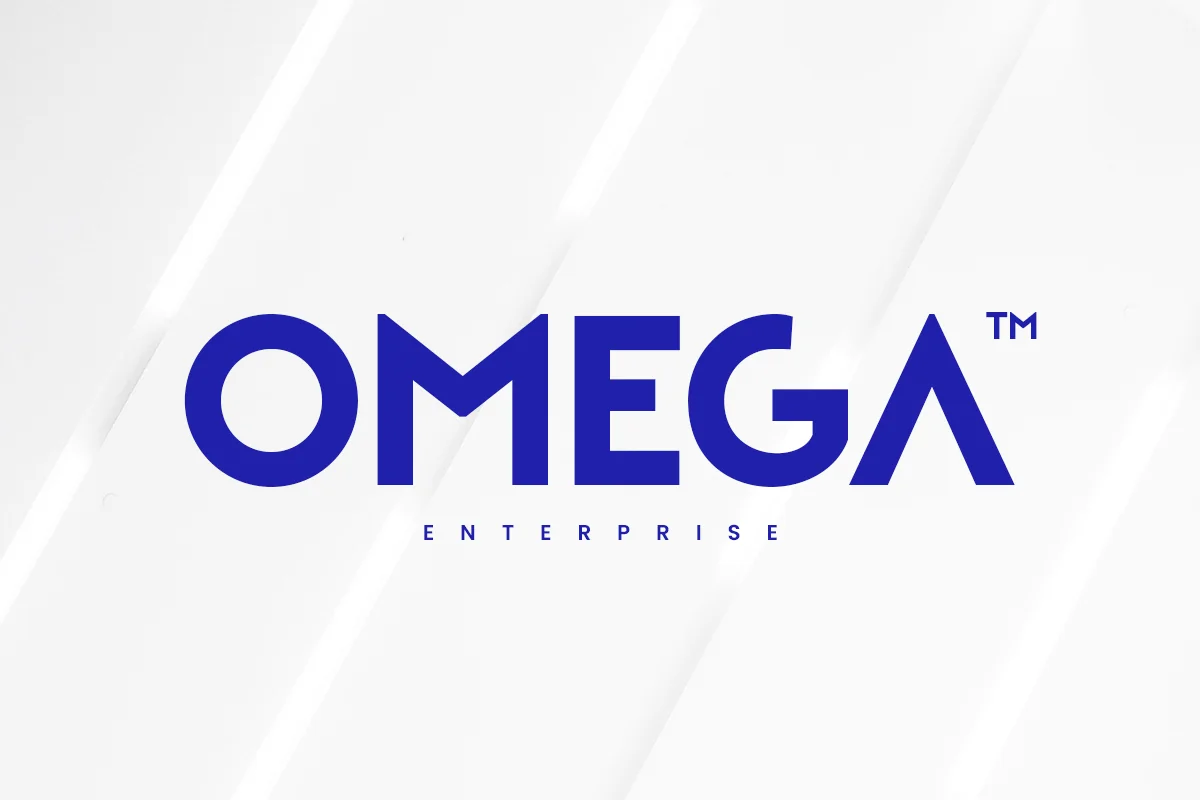
REGION – Logo Font
Introducing REGION, the ultimate technology logo font designed for modern and innovative branding. REGION combines sleek aesthetics with cutting-edge design, making it perfect for tech-savvy projects.
REGION Font Features:
- Modern Design: A sleek and contemporary font ideal for technology and digital themes.
- Versatile Usage: Perfect for logos, branding, tech presentations, and innovative designs.
- Futuristic Aesthetics: Clean and stylish, ensuring your designs stand out.
- High-tech Appeal: Tailored for professional and cutting-edge branding needs.
- Inspirational Previews: Includes sample designs to spark your creativity.
Elevate your brand with REGION, a font that embodies the essence of modern technology and innovation. Whether for creating dynamic logos or sleek typography, REGION brings a touch of futurism to all your design projects. Make a bold statement with REGION’s high-tech style and impeccable design.